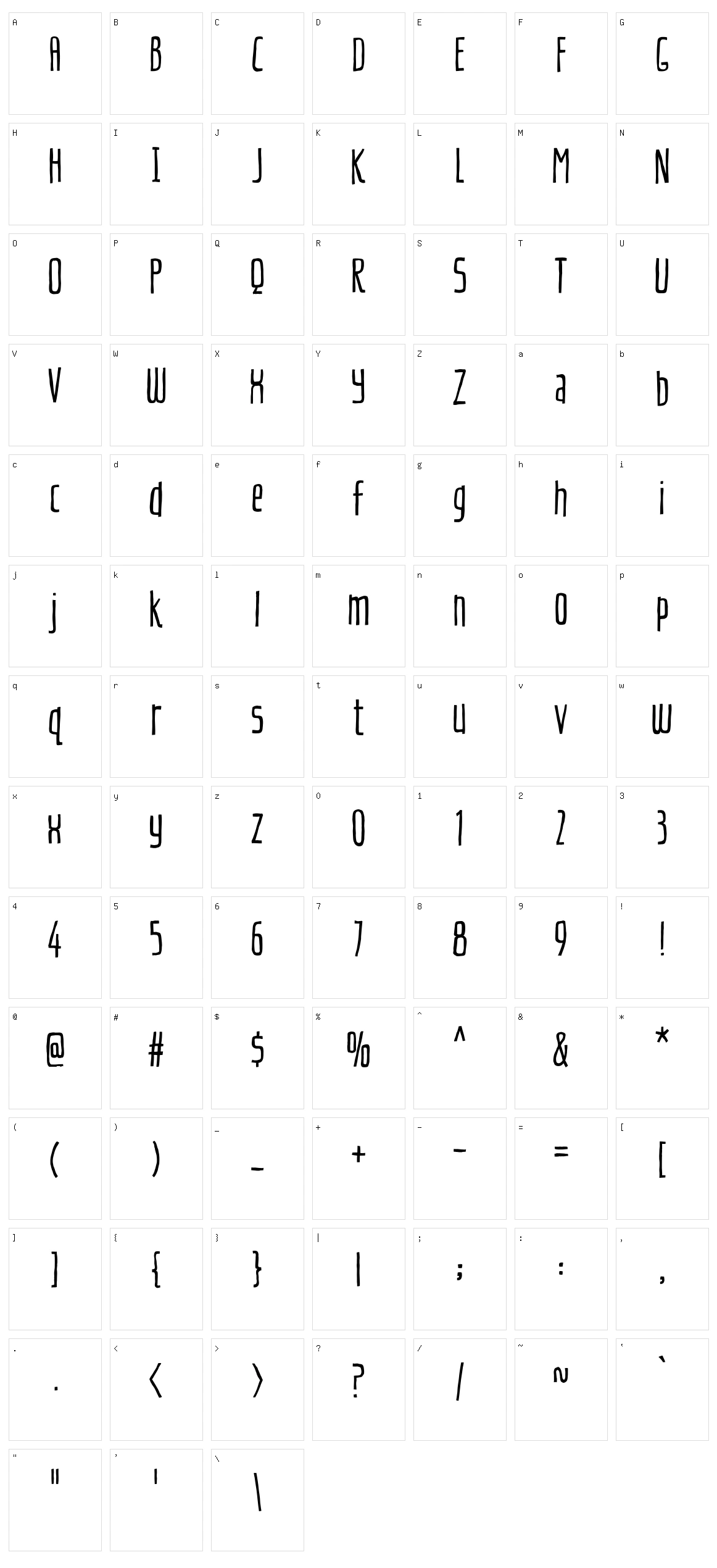
The free font Cherily Blussom is carefully designed by Pizzadude, showcasing a thoughtful balance of creativity and usability and falls under the Cartoon font style. When you download the ZIP file, it contains only 33.26 KB of font files, making it lightweight and quick to download. Please review the license details below to understand permitted usage and distribution rights. If license information is not available, we recommend using this font for personal projects only or contacting the author directly for commercial usage permissions.